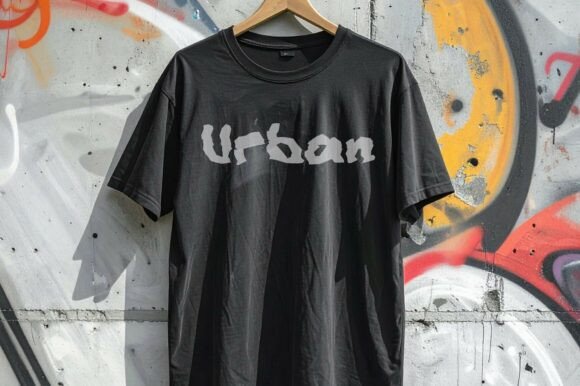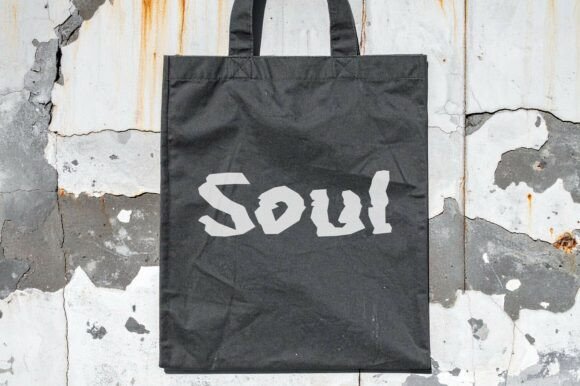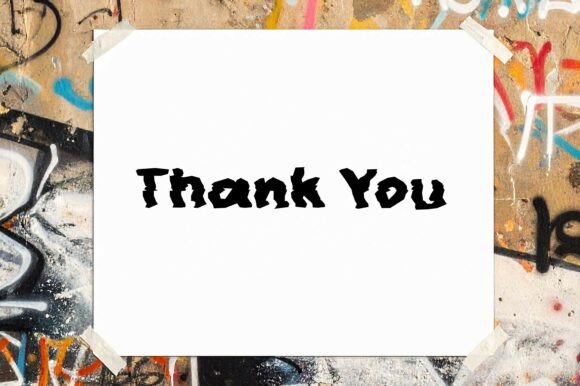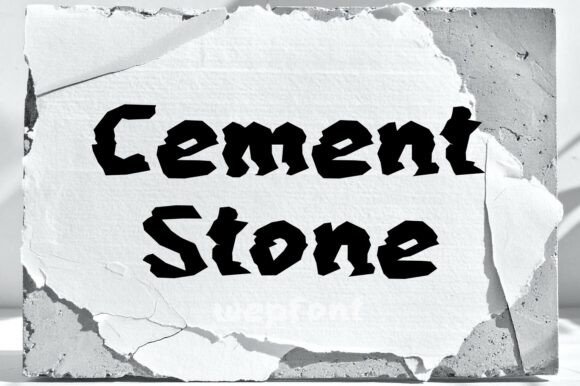
Cement Stone Font: Unleash the Raw Power of Urban Landscapes
Immerse yourself in the relentless strength of the city with Cement Stone, a powerful display font that perfectly captures the unrefined beauty of urban landscapes and industrial elements. Infused with the rugged allure of concrete and stone textures, this font crafts an incredibly potent, chiseled allure, as each character appears almost carved out of the city walls.
The Inspiration Behind Cement Stone
Cement Stone is thoughtfully crafted with an intentional touch of roughness and a whisper of distressed appeal, echoing the authentic wear and tear evident in urban and industrial settings. The font’s design is inspired by the raw, unbridled energy of city life, where steel, concrete, and stone reign supreme. Each character is carefully shaped to reflect the rugged texture of urban environments, giving the font a unique, organic feel.
Urban Vibes and Endless Possibilities
Emanating a fiercely contemporary urban vibe, Cement Stone is the ideal fit for modern branding, street art style designs, and avant-garde fashion trends. The font’s versatility knows no bounds, making it a perfect choice for a wide range of creative projects. Whether you’re designing a bold logo, crafting a striking headline, or creating a statement piece for an extreme sports event, Cement Stone is the perfect companion.
Key Features of Cement Stone
- Rugged texture: Cement Stone boasts a unique, distressed texture that gives it a raw, unrefined feel.
- Urban appeal: The font’s design is inspired by the gritty, industrial landscapes of city life.
- Versatility: Cement Stone is perfect for a wide range of creative projects, from branding and advertising to street art and fashion.
- Bold statements: The font’s sturdy composition makes it ideal for crafting conspicuous headlines, logos, and bold statements.
Cement Stone is a treasure trove of creative possibilities for designers and crafters. The font’s unique texture and urban appeal make it perfect for:
- Music albums: Add an edgy touch to your music album covers with Cement Stone’s bold, rugged font.
- Street art: Use Cement Stone to create striking street art pieces that reflect the urban landscape.
- Fashion designs: Incorporate Cement Stone into your fashion designs for a bold, avant-garde look.
- Branding and advertising: Use Cement Stone to create bold, attention-grabbing logos and advertisements.
Why Choose Cement Stone?
In a world where typography plays a crucial role in visual communication, Cement Stone stands out from the crowd. The font’s unique blend of rugged texture and urban appeal makes it a perfect choice for designers and crafters looking to add an edgy touch to their creations. With Cement Stone, you can:
- Add a touch of urban grit: Give your designs a raw, unrefined feel with Cement Stone’s rugged texture.
- Make a bold statement: Use Cement Stone to craft conspicuous headlines, logos, and bold statements that demand attention.
- Stand out from the crowd: With its unique texture and urban appeal, Cement Stone is sure to set your designs apart from the rest.
Cement Stone is a powerful display font that embodies the raw energy of urban landscapes. With its rugged texture, urban appeal, and versatility, it’s the perfect choice for designers and crafters looking to add an edgy touch to their creations. Whether you’re working on a branding project, street art piece, or fashion design, Cement Stone is sure to make a bold statement. So why wait? Unleash the raw power of urban landscapes with Cement Stone and take your designs to the next level.